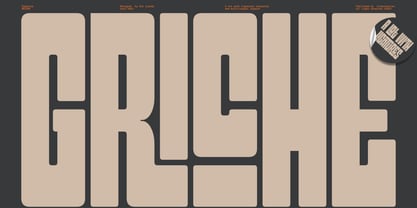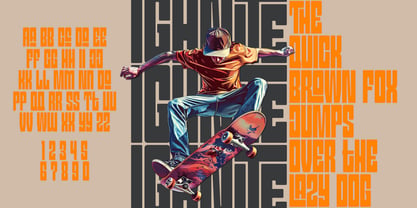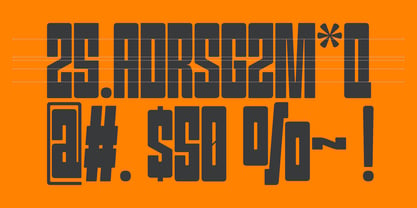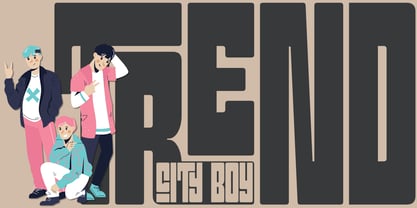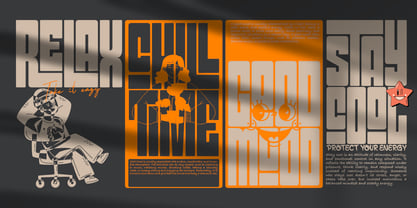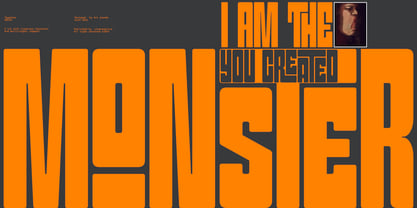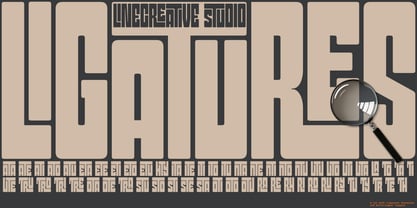
Griche
by Linecreative
The Griche Font Family was designed by Ari Juanda and published by Linecreative. Griche contains 1 styles. More about this family
Griche is a bold and distinctive display typeface designed to make a strong visual impact. Featuring solid, geometric letterforms with a condensed structure, this font delivers a modern yet slightly retro-industrial feel, making it ideal for headlines, branding, posters, and statement typography. Griche stands out through its unique character construction—clean edges combined with subtle stylistic cuts that add personality without sacrificing readability. The font is equipped with a rich set of ligatures, allowing for more dynamic and visually engaging letter combinations. In addition, it offers multilingual support, making it versatile for global use across various languages and projects. With its confident presence and refined details, Griche is perfect for designers looking to create bold, eye-catching compositions while maintaining a clean and professional aesthetic.
Designers: Ari Juanda
Foundry: Linecreative